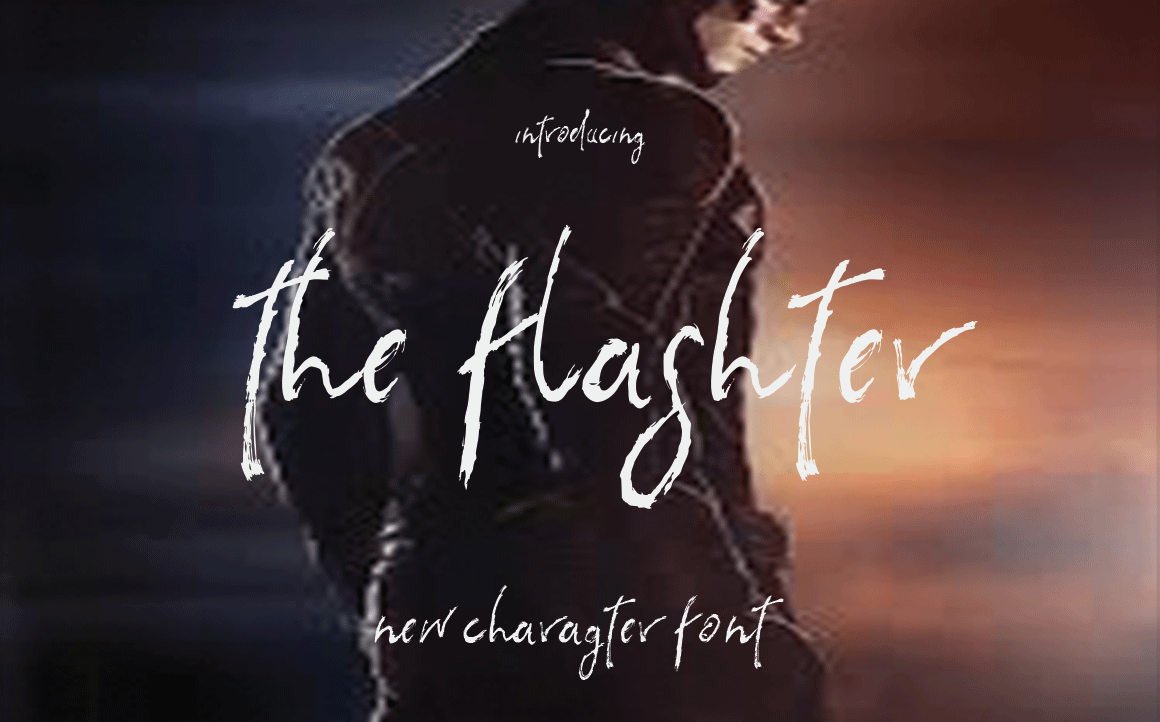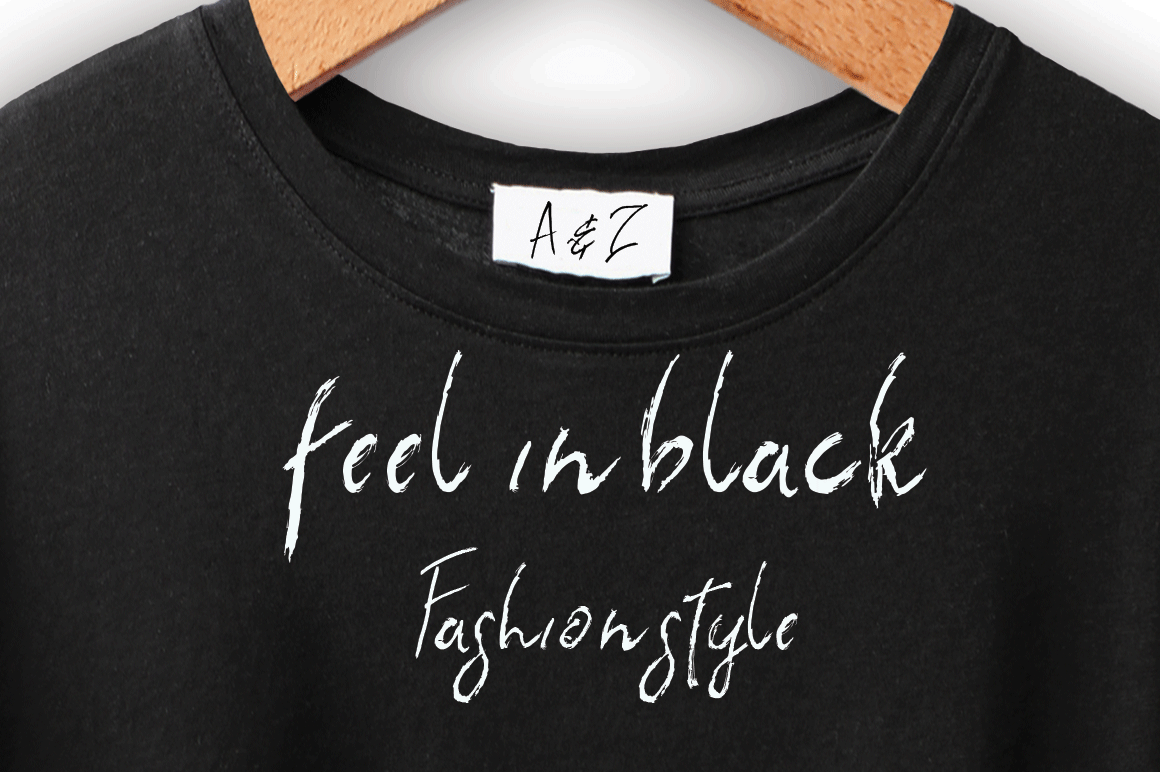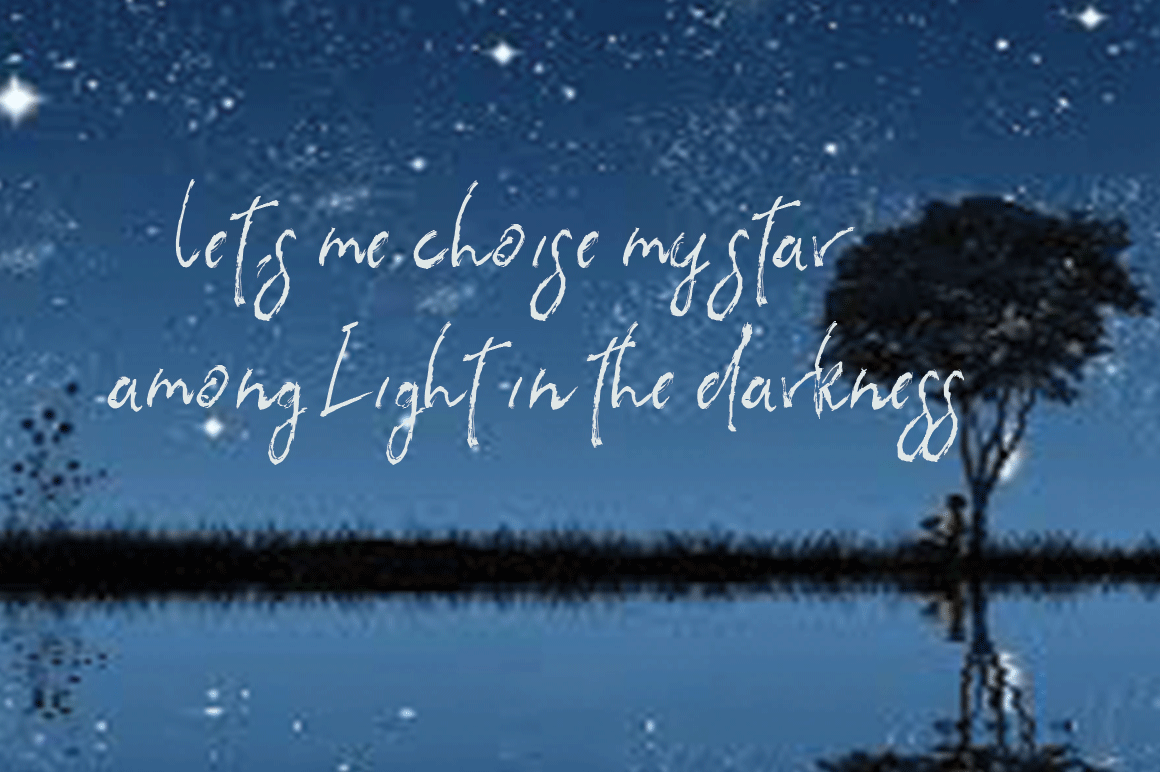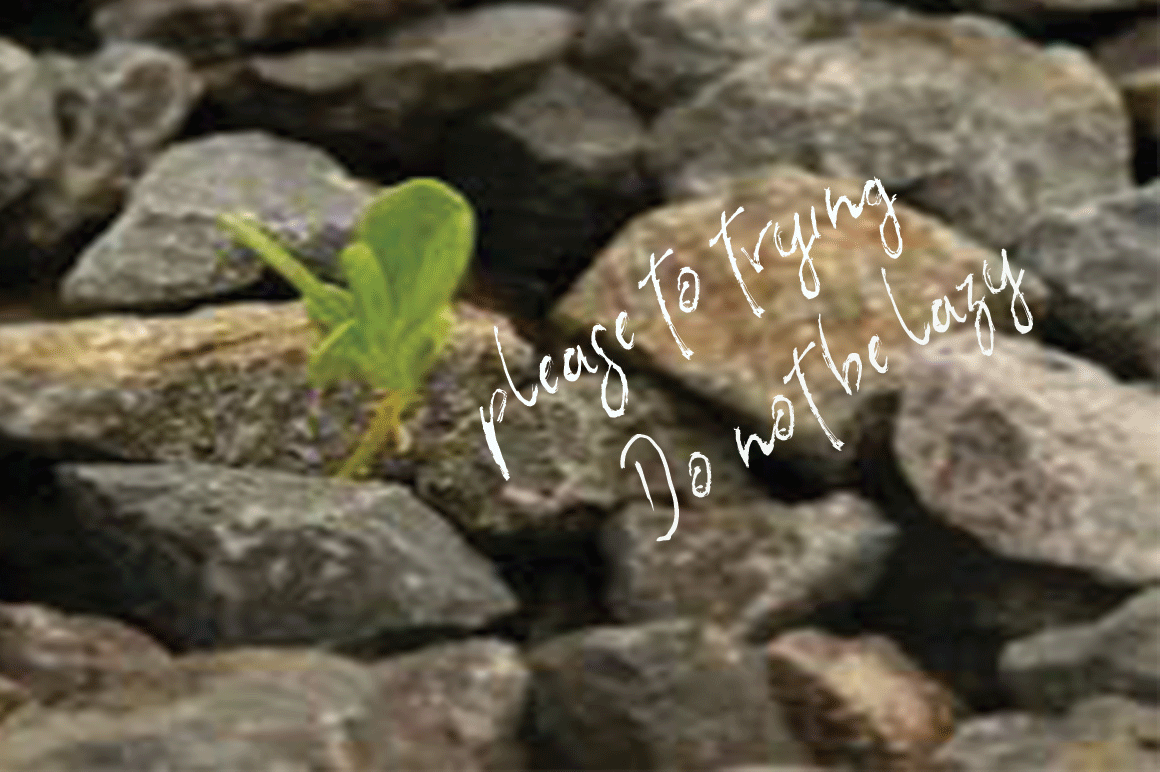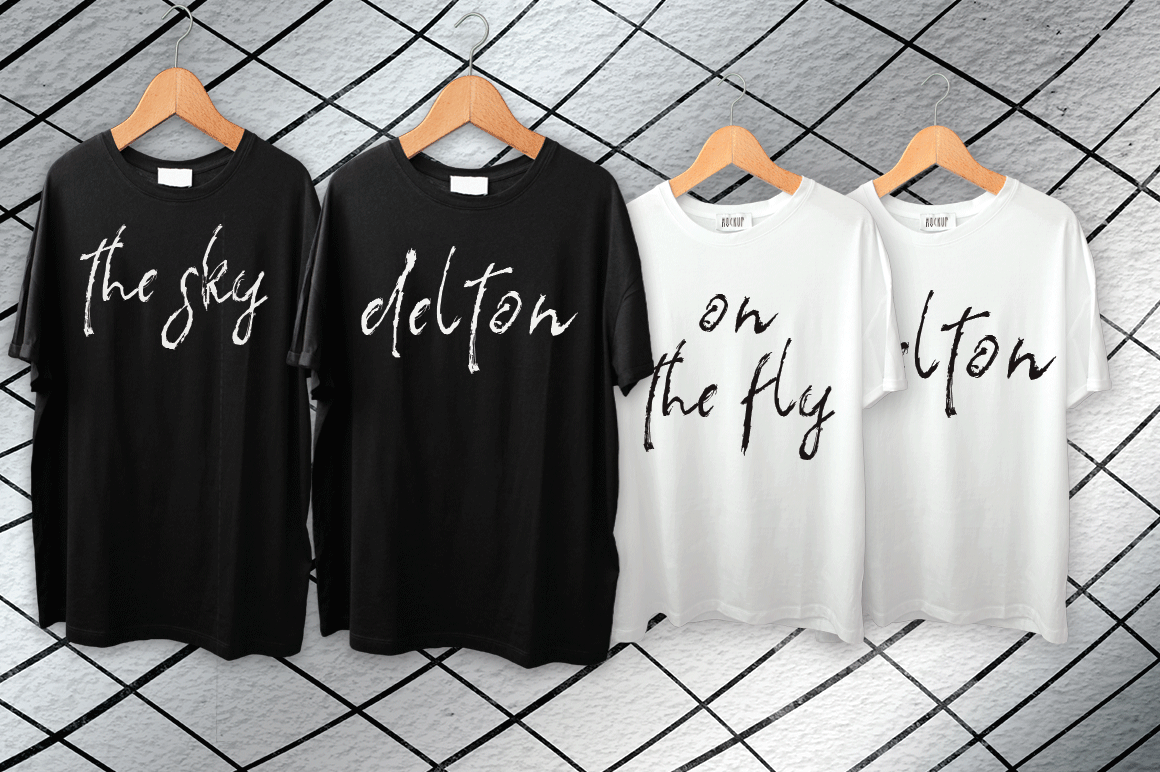
HomeScript FontsThe Flashter Font Script Fonts The Flashter Font FacebookXPinterestWhatsApp The Flashter Font Poster 2 The Flashter Font Poster 3 The Flashter Font Poster 4 The Flashter Font Poster 5 About The Flashter Font The Flashter font is a thin handwritten script font created by Tone Studio. DOWNLOAD NOW People also explored Algroofys Font Bold Wroc Special Font Certainly Style Font My Heart Font Omesh Font Bold Bungek Font Swaylea Font Stampson Font Stream Font 326 0 TagsThe Flashter Font Previous articleHypnos FontNext articleBlester Font LEAVE A REPLY Cancel reply Comment: Please enter your comment! Name:* Please enter your name here Email:* You have entered an incorrect email address! Please enter your email address here Website: Save my name, email, and website in this browser for the next time I comment. Personal Use Free Bellarin Personal Use Free Read more about this font Laneway Personal Use Free Read more about this font Token No 721 Personal Use Free Read more about this font Monogram Calligraphy Personal Use Free Read more about this font BLOG Using Fonts in Digital Marketing: Tips to Strengthen Your Brand Identity In the realm of digital marketing, every visual element plays a crucial role in shaping a brand's identity, and fonts are no exception. The... 5 Fonts That Will Dominate Design Trends in 2026 Free Fonts Risk: Why Free Fonts Can Be Dangerous for Designers The 10 Best Handwriting Fonts to Add Personality to Your Designs